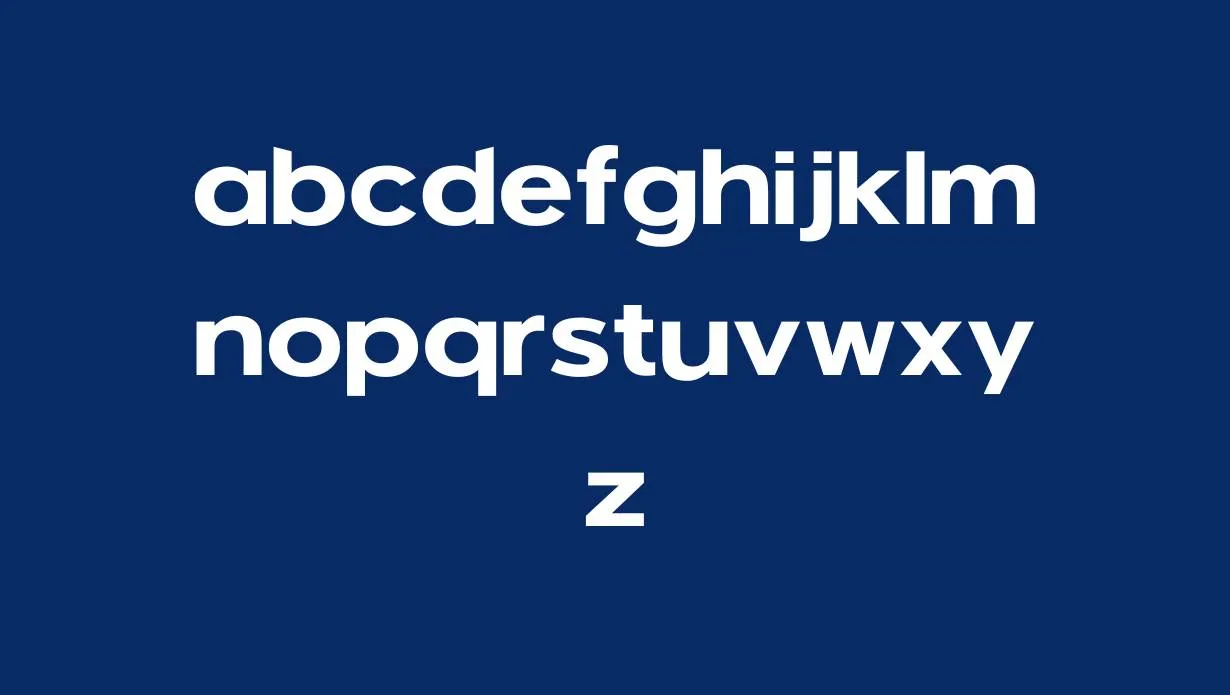
Blender Logo Font is a Sans-Serif font that was designed by Jeroen Van Aken. This typeface is inspired by the lettering style of the “Blender Foundation”.
The original font used in the Blender Foundation logo is similar to Interstate Bold Font which was created by Tobias Frere-Jones.